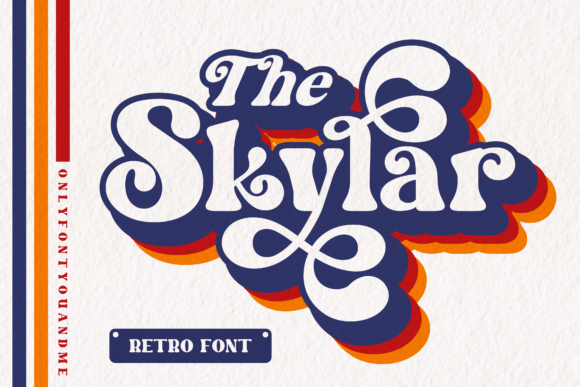
Introducing The Skylar Font - the ultimate choice for anyone looking for a bold and captivating vintage sign font. Created by onlyfontyouandme, this display font is the perfect blend of retro and modern elements, making it an ideal choice for all your creative projects.
Whether you're designing a logo, crafting a headline, or working on a magazine spread, The Skylar Font is guaranteed to make your message stand out. With its PUA encoding, this font offers easy access to all the glyphs and alternates, giving you complete creative control over your design.
But what sets The Skylar Font apart from other vintage sign fonts? For one, it's incredibly versatile. It works equally well in both print and digital media, making it a smart choice for anyone looking to create a cohesive branding strategy. Plus, its bold lines and dramatic curves are sure to evoke an emotional response from your audience, making it the perfect font for anyone looking to make a lasting impression.